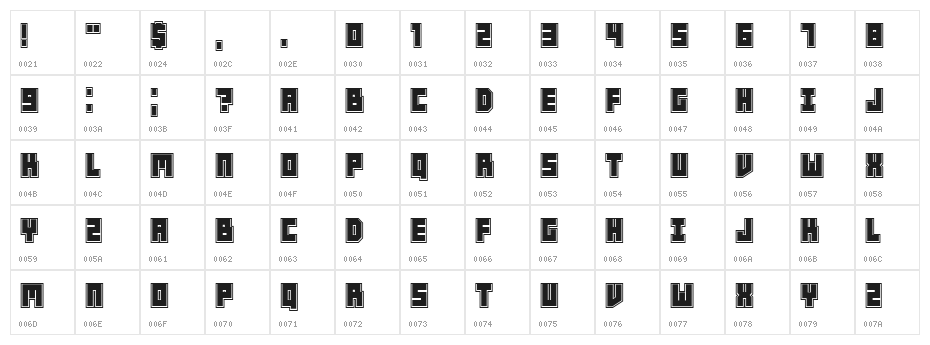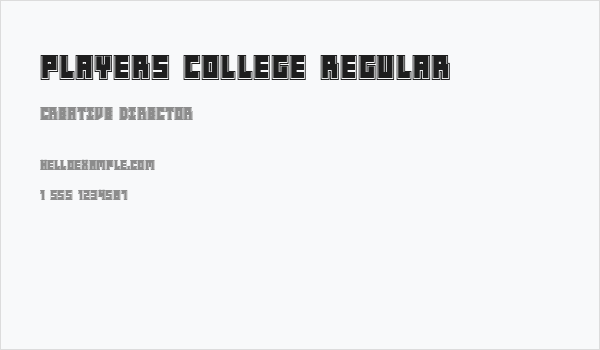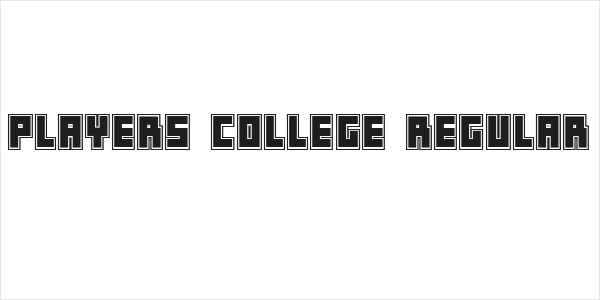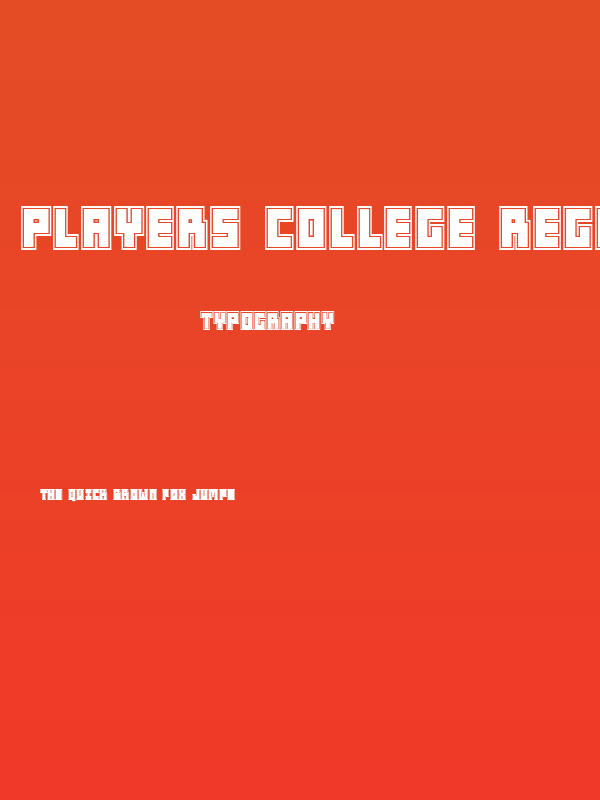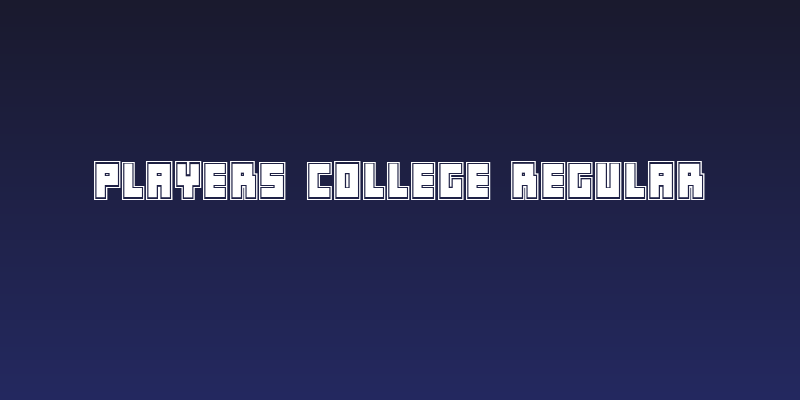
Players College Regular Font
Players College Regular Description
This font features a bold, blocky design with a strong geometric structure. Each character is outlined with a thick border, creating a striking and impactful appearance. The uppercase letters are uniform in height and width, contributing to a cohesive and balanced look. The numerals and special characters maintain the same bold style, ensuring consistency across all elements. The font's design is reminiscent of sports or collegiate themes, making it ideal for projects that require a strong, authoritative presence. Its high contrast and clear legibility make it suitable for headlines and titles where attention is paramount.
| Proposed Projects | Ideal for sports team branding, event posters, and merchandise designs. |